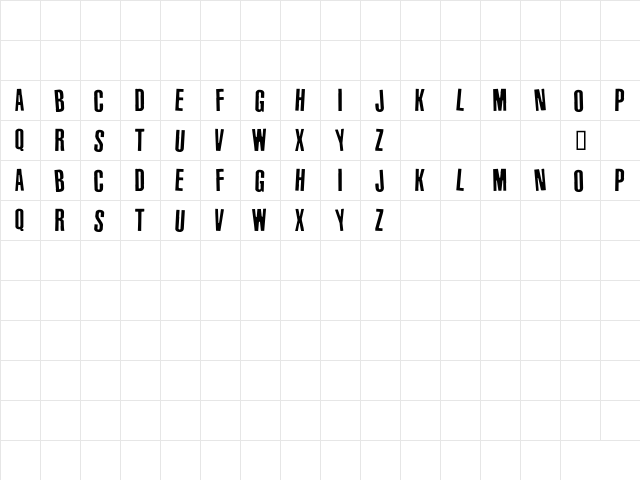
Vinyl Stickons Regular Font Preview
Vinyl Stickons Regular
Design Context for Vinyl Stickons Typeface
Vinyl Stickons offers clean, dependable letterforms without strong stylistic allegiance, making it a practical choice for designers who need flexibility.